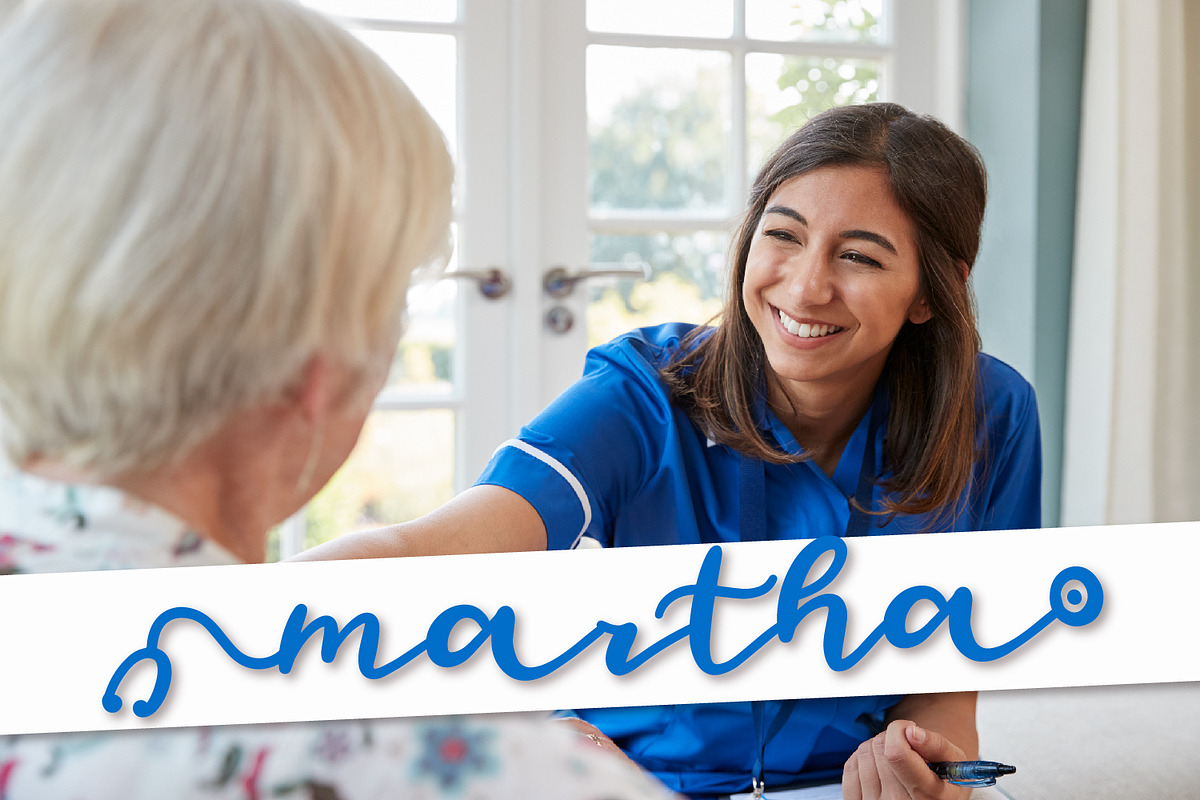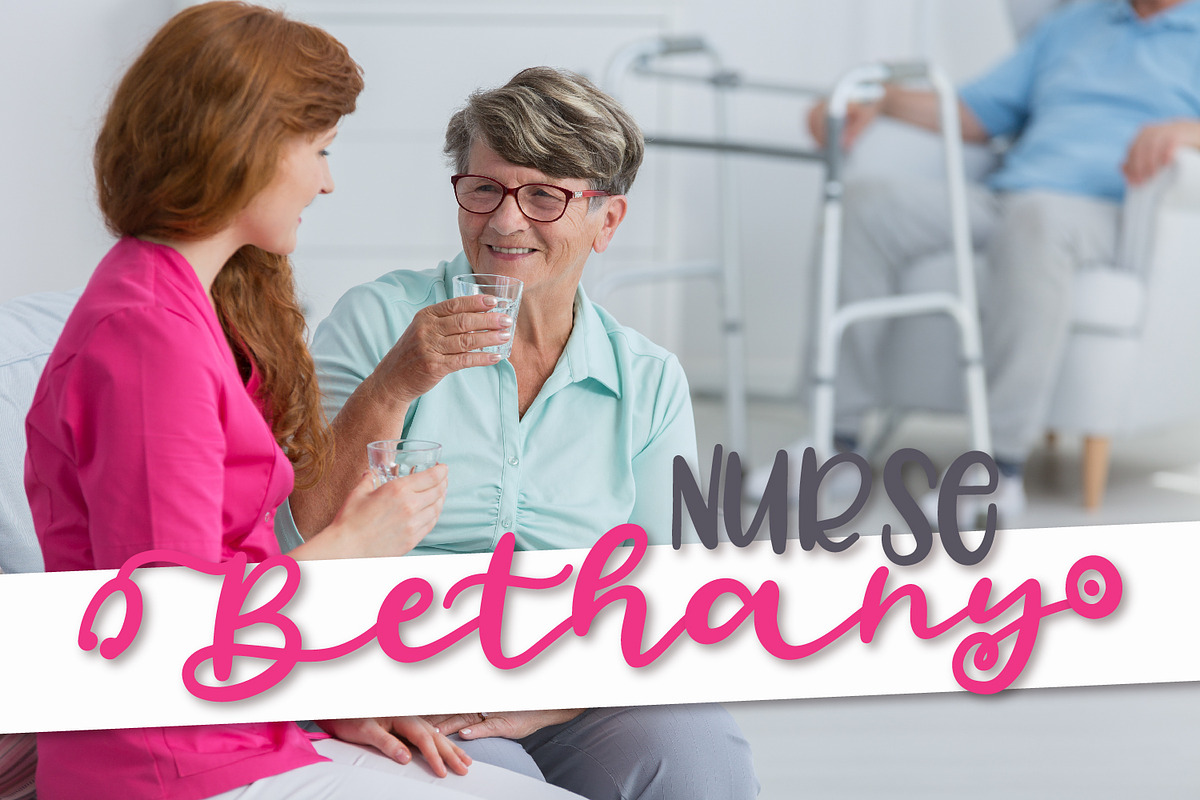
Stethoscope Script - A Nurse Font
This simple font can be used for any career that involves stethoscopes. Take a look at the "key" page for info on how to get the extra tid-bits and the stethoscope bell. Includes OTF TTF WOFF
To give you an idea of how this font works, here are how the promotional pictures are achieved: "LOVE" written with a heart & stethoscope ends would be typed: (love ) A capital "B" monogram, typed: B) "KIM" with a heart would be typed: Kim) Monogram "H" would be typed: H) "Nurse Bethany" would be typed: @ Bethany) "Beverly" would be typed: Beverly) "Martha" would be typed: (martha) "Nicole Hill" with a heart would be: (nicolehill) "life" would be typed: (life)